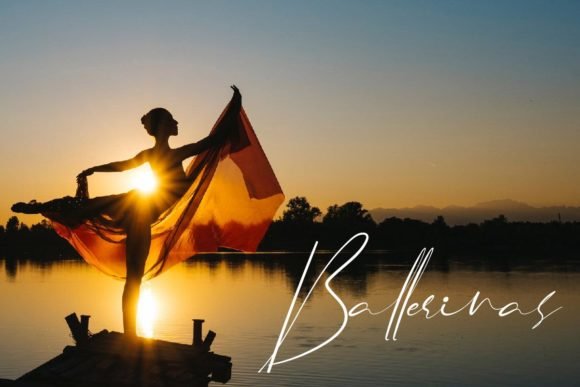
Unlock the Power of Elegant Typography with Ceglar Font
Have you ever found yourself stuck in a creative rut, searching for the perfect font to elevate your design project? You know, that moment when you’re pouring over font libraries, scrolling through endless options, and still can’t seem to find the one that captures the essence of your vision? That’s where Ceglar Font comes in – a game-changing, 4-style font pack designed to give you the freedom to create without limits.
Ceglar Font is more than just a trio of fonts – it’s a complete design toolkit crafted to help you tell your story with style and sophistication. With a refined Serif Display, a clean Sans Serif Monoline, and a stylish Signature Script, you’ll have the perfect combination to create harmonious, visually stunning designs that leave a lasting impression.
Ceglar Font Key Features
- Font Family: Ceglar Font is a sans-serif font family designed for use in digital and print media.
- Character Count: The font family includes 250+ glyphs, covering a wide range of languages and characters.
- Unique Characteristics: Ceglar Font features a clean and modern design with a subtle rounded edge, making it ideal for use in corporate branding and digital interfaces.
Ceglar Font Review
I recently had the chance to work with the Ceglar font, and I must say it’s a mixed bag. ✨ One thing that really stands out is its unique, quirky aesthetic. The font’s playful feel is perfect for projects that need a bit of whimsy and personality.
- ✨ Great for creative projects: The Ceglar font is ideal for projects that require a touch of personality, such as branding for a startup or a small business.
- ✨ Easy to read: Despite its unconventional design, the font is surprisingly legible, making it a great choice for body text.
- ✨ Highly customizable: The Ceglar font offers a wide range of customization options, from font size to line spacing.
However, there are some limitations to consider: ⚠️ The font can be a bit overwhelming in large quantities, and the unique aesthetic may not be to everyone’s taste.
- ⚠️ May be too quirky for some projects: The Ceglar font’s playful feel may not be suitable for more formal or conservative projects.
- ⚠️ Limited font weights: The font only comes in a limited range of weights, which may make it less versatile for certain design projects.
Overall, the Ceglar font is a great choice for projects that need a bit of personality and flair. While it may not be the best fit for every project, it’s a solid option for designers looking to add some visual interest to their work.
The Ceglar Font is suitable for various design projects, including:
- Logos and branding elements
- Business cards and stationery